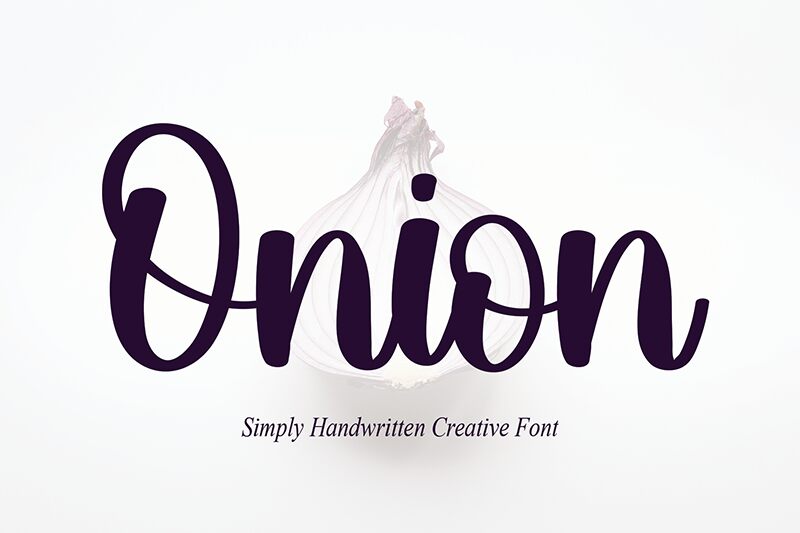
Onion
Onion by scratchones is a bold, handwritten font that adds a personal touch to any project. Its thick strokes and unique curves make it perfect for creating eye-catching headings or logos. With its playful yet professional look, Onion is suitable for a variety of projects such as food blogs, fashion magazines, or even invitations to special events. This versatile semi-bold typeface can also be used for branding projects that require a touch of personality and creativity. Add some flavor to your designs with Onion!
the latest style letters are perfect for wall displays, wedding invitations, social media post logos, advertisements, product packaging, product designs, labels, photography, watermarks, invitations, stationery, and any project that requires taste handwriting.